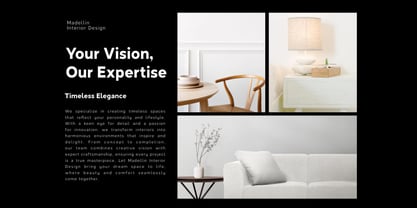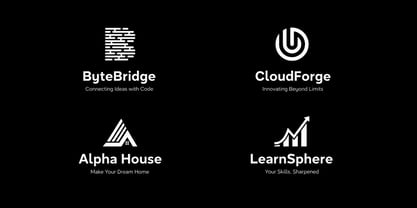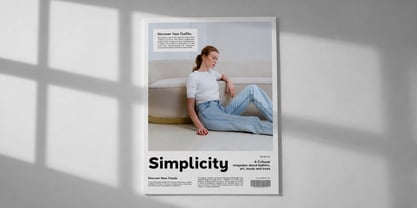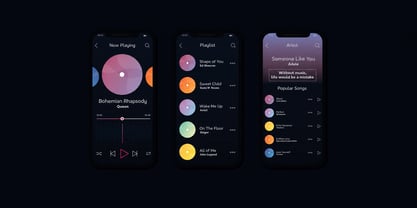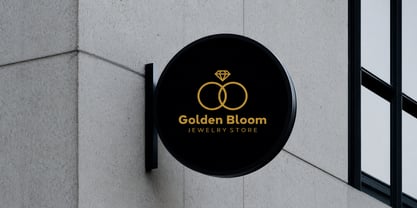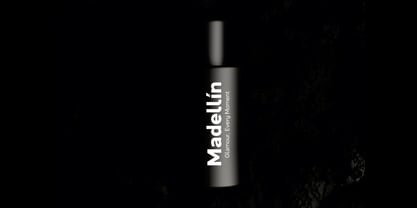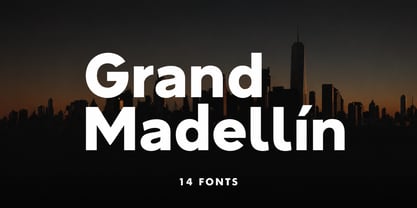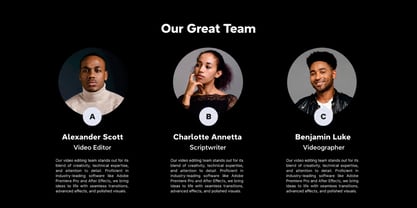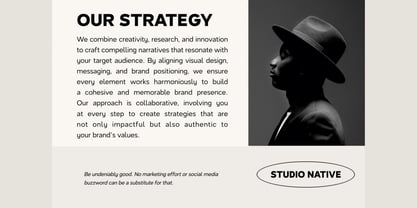
Grand Madellin
by Unitype Studio
The Grand Madellin Font Family was designed by Faizul Muna and published by Unitype Studio. Grand Madellin contains 14 styles and family package options. More about this family
Madellin is a fresh, geometric sans-serif font family that brings a modern, clean aesthetic to any design. With its sleek, sharp edges and bold letterforms, it captures the essence of neo-grotesk fonts from the 20th century. The font has been carefully crafted to have a large x-height, giving it a strong presence while maintaining readability. It’s a versatile font that works across a variety of design needs, from headlines to logos and everything in between.
The Madellin family comes with seven font weights, giving you plenty of flexibility to find the perfect look for your project. It also includes italic versions of each weight, adding even more versatility to your design toolkit. Whether you’re working on branding, posters, or web design, Madellin adapts to all your creative needs with ease.
Madellin’s minimalist and professional style makes it an ideal choice for projects like branding, advertising, packaging, signage, and much more. Its geometric shapes and sharp lines create a bold, modern vibe that works well in both print and digital media. From newspapers to fashion lookbooks, this font ensures your message stands out with clarity and style.